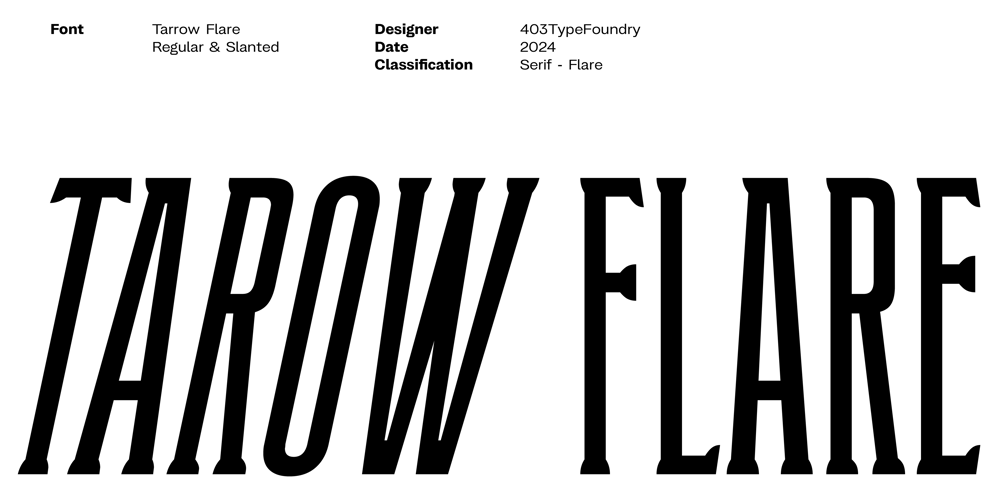
403 Tarow Flare Font Family was designed by Umar Al Farouq, Jodi El Ghazi, Febri Riansah and published by 403TF. 403 Tarow Flare contains 2 styles and family package options. Tarow Flare is a sophisticated font characterized by its narrow proportions and distinctive flared terminals. Designed with a single weight and available in regular and slanted styles, Tarow Flare offers a versatile and elegant typeface suitable for a wide range of applications. Its clean lines and contemporary aesthetic make it an ideal choice for branding and headlines, adding a touch of refinement to any design project. The font’s juxtaposition of thick strokes and delicate serifs creates a visually striking contrast, reminiscent of both vintage and modern design styles.